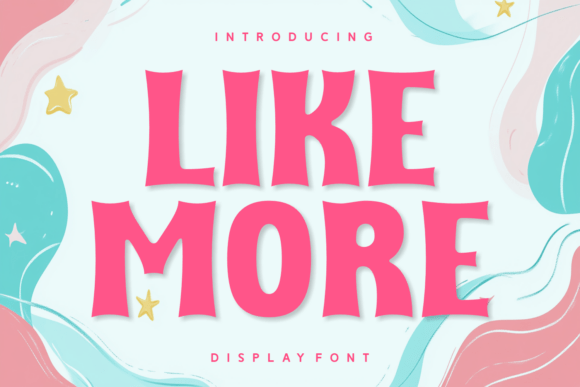
Introducing “Like More Font” – Elevate Your Designs with Elegance and Charm
In the realm of typography, few fonts manage to capture the essence of femininity and romance as effectively as “Like More Font”. This captivating display font is designed to inject an air of elegance and charm into your designs, making it the perfect addition to your creative toolkit. With its youthful approach, “Like More” is ideal for crafting captivating wallpapers, endearing hand-drawn sketches, and a wide range of other creative projects.
Key Features of “Like More Font”
- Elegant and Charming: “Like More” boasts a unique and captivating design that adds a touch of sophistication to any project.
- Youthful Approach: The font’s youthful vibe makes it perfect for designs that require a fresh and modern feel.
- Multilingual Support: “Like More” comes with multilingual support, making it a versatile choice for designers working with global clients.
- Versatile: The font excels in various design applications, from headlines and centerpieces to crafts, social media graphics, and print projects.
Endless Design Possibilities with “Like More Font”
“Like More” is an incredibly versatile font that can be used in a wide range of design applications. Here are some of the many ways you can utilize this beautiful font:
- Headlines and Centerpieces: Use “Like More” as a headline or centerpiece to add a touch of elegance and charm to your designs.
- Crafts: The font is perfect for craft projects, accentuating the beauty of your creative work.
- Social Media Graphics: Garner likes and shares on your social media platforms with “Like More”. Use it to make your photography captions more engaging with its smooth strokes.
- Print Projects: Use “Like More” in your sublimation designs or as the star of your print projects. It shines brightly even in the simplest school designs.
- T-Shirt Typography: Create striking t-shirt typography with “Like More”.
- Quote Graphics: Design pleasing quote graphics that showcase the font’s elegance and charm.
- Book Covers: Use “Like More” to create appealing book covers that evoke feelings associated with the pages of a heartfelt novel or the cover of a stylish magazine.
- Branding: The font seamlessly integrates into branding, imbuing an authentic aesthetic in business cards and clean packaging designs.
“Like More Font” – A Seasonal Favorite
“Like More” adapts well seasonally, fitting in equally with summery or wintry themes. The font adds a spark of life to cartoon creations and is perfect for:
- Summer Designs: Use “Like More” to create refreshing summer designs that evoke feelings of warmth and sunshine.
- Winter Designs: The font is also perfect for winter designs, adding a touch of elegance and charm to your snow-themed projects.
“Like More Font” – A Font that Keeps Up with the Latest Typography Trends
“Like More” is now firmly in step with the latest typography trends. With its unique design and multilingual support, this font is perfect for designers who want to stay ahead of the curve.
In conclusion, “Like More Font” is a captivating display font that embodies femininity and romance. With its elegant and charming design, multilingual support, and versatility, this font is perfect for a wide range of design applications. Upgrade your creative toolkit with “Like More” and take your designs to the next level.